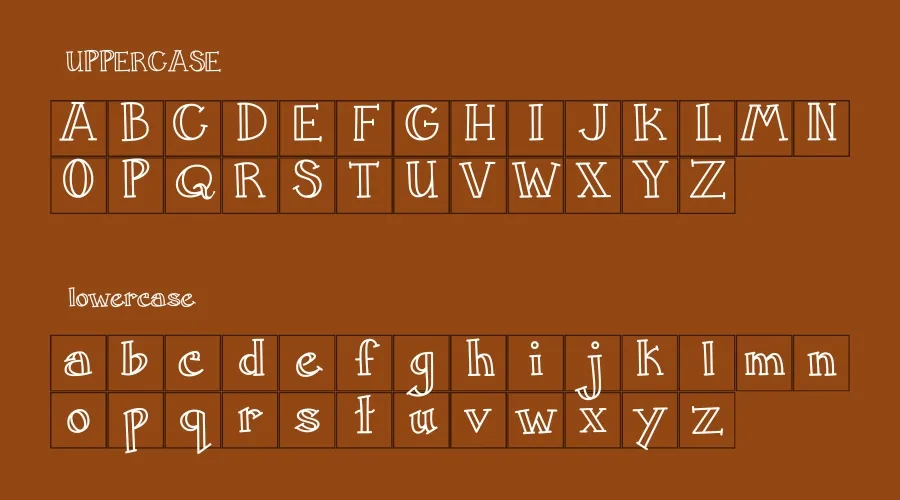
Ld Double Line Font
About Ld Double Line Font
Ld Double Line Font is designed by Macromedia. This style will allow the user to create various designs in different languages. This font moreover comprises trendy glyphs.
The letters of this typeface, have a very sleek look. The characters in this typeface have the right height, width, and idealized space between the letters.
The design of this typeface makes this font an incredible choice for lively designs. You can utilize the typeface on different computer programs such as Adobe Photoshop, and Canva. Pair it with donrees claws font to create special and modern designs.